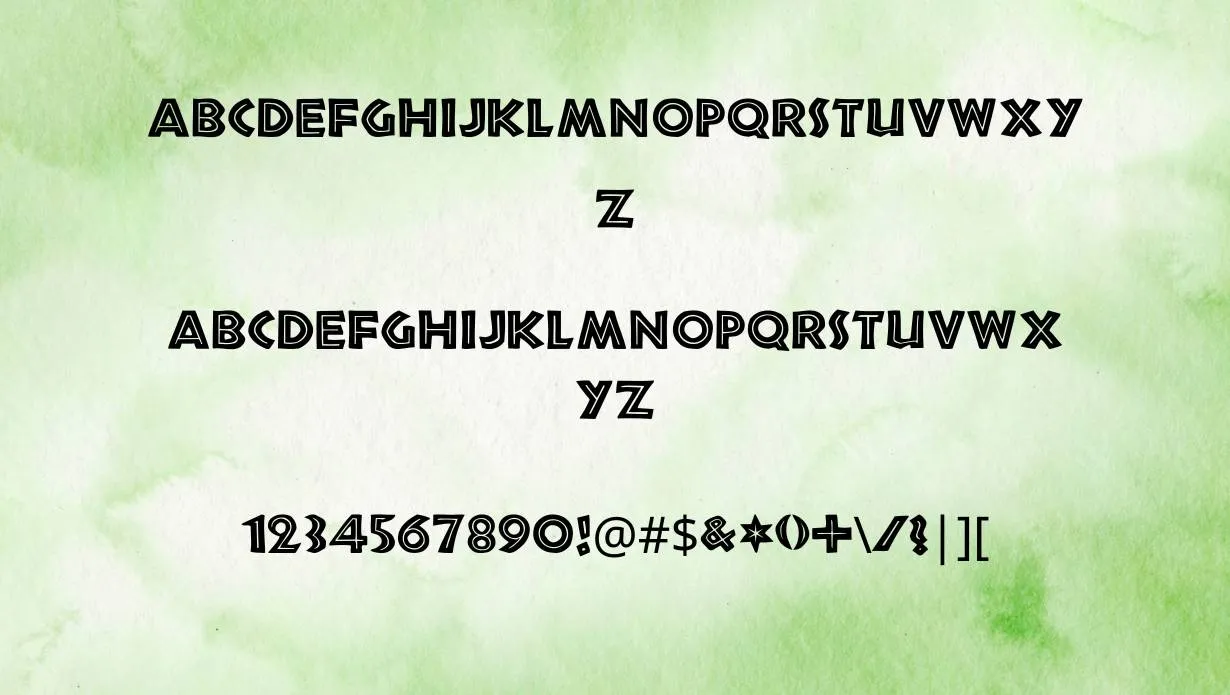
Tribeca Font is a modern and sleek typeface with a clean and sophisticated look. Its sharp edges and contemporary design make it suitable for tech company logos, editorial designs, and minimalist branding.
This font, available in Adobe and MS Word, is often used to create a professional and streamlined appearance in various visual projects, providing a sleek and stylish vibe to text elements.
| Name | Tribeca Font |
| Designer | David Rakowski |